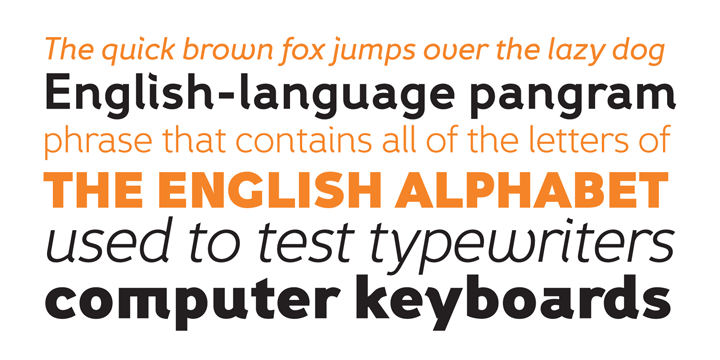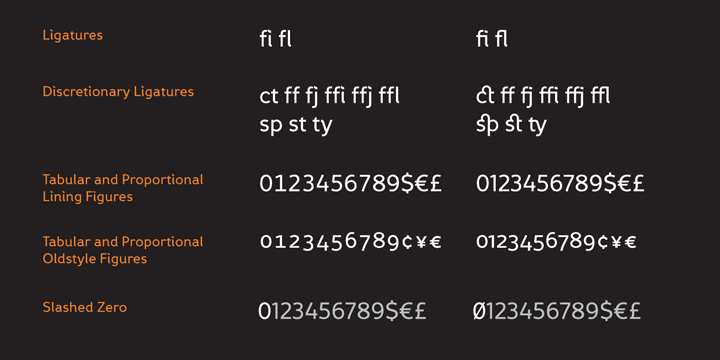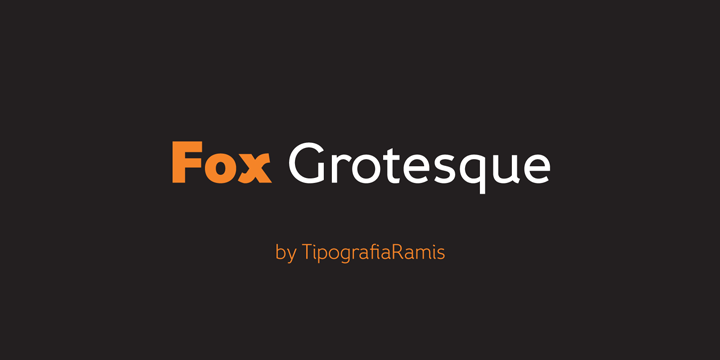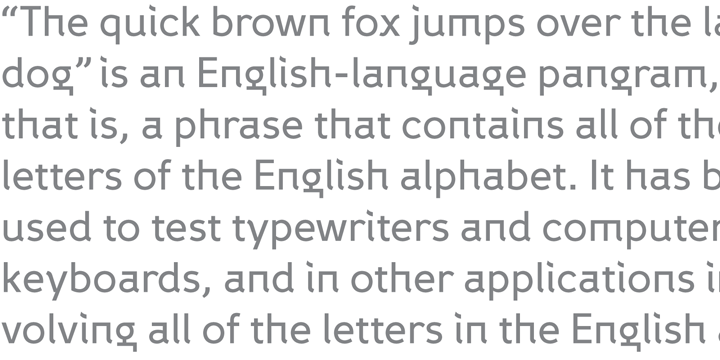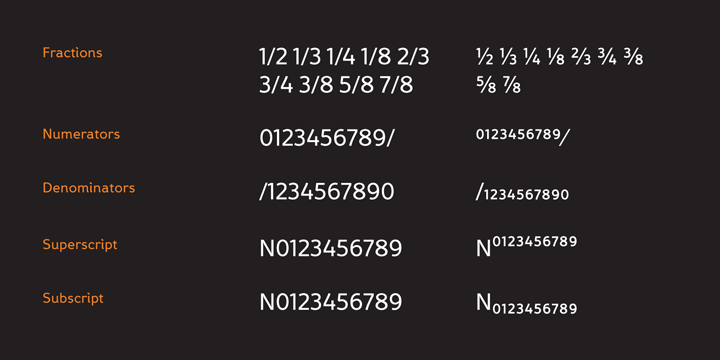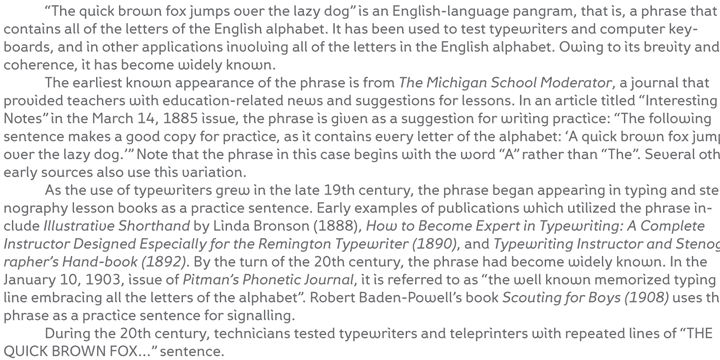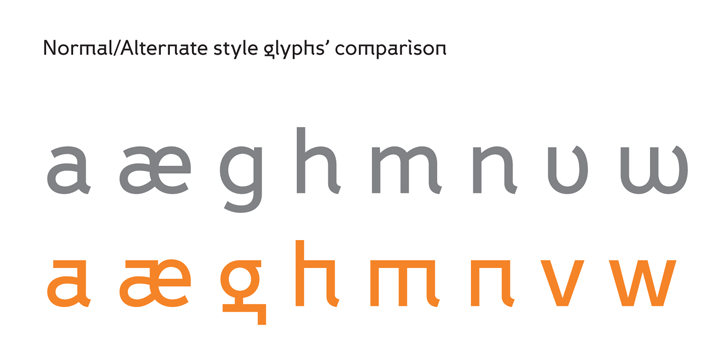
Fox Grotesque is a display, sans serif and display sans font family. This typeface has twelve styles and was published by TipografiaRamis.
Fox Grotesque is another member of the Fox Family and stylistically finds itself between Fox TRF (with some extreme curly lowercase letters), and Fox Sans (a cold geometric sans-serif).
While the typeface is intended for use in display sizes, it is also quite legible in text and is well suited for editorials.
Fox Grotesque is released in OpenType format with extended support for most Latin languages and includes some opentype features – proportional/tabular, lining/oldstyle figures, slashed zero, ligatures, fractions…